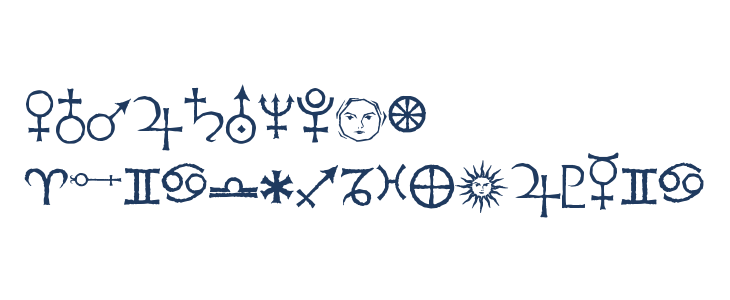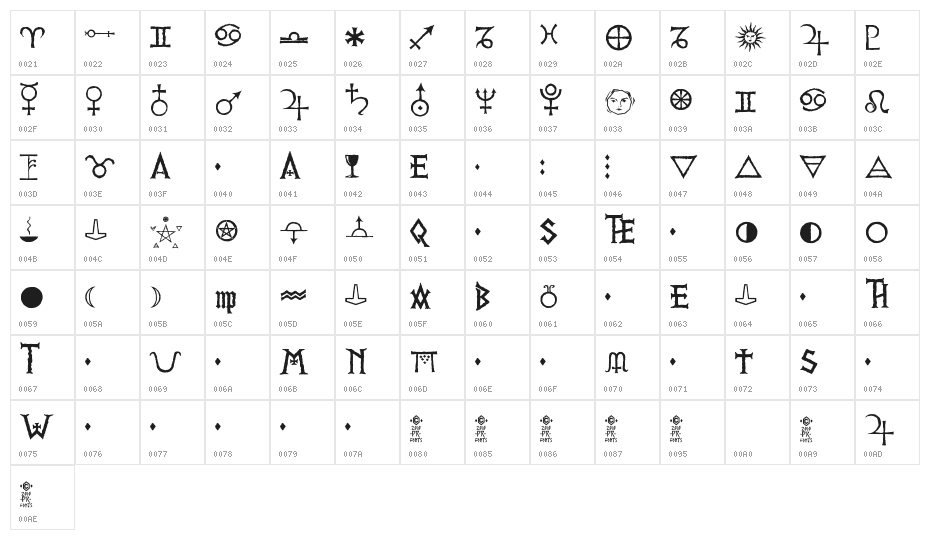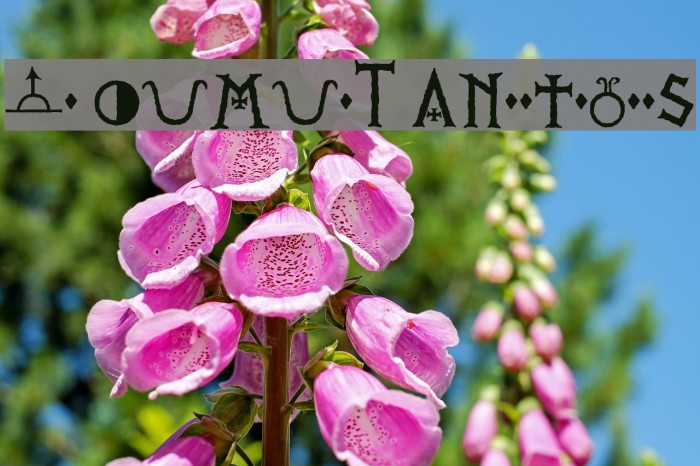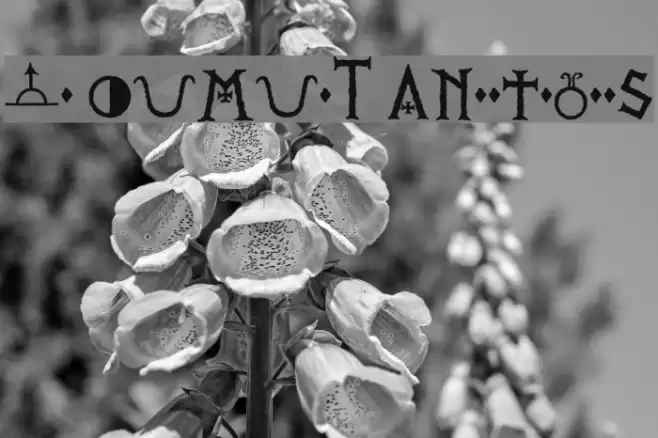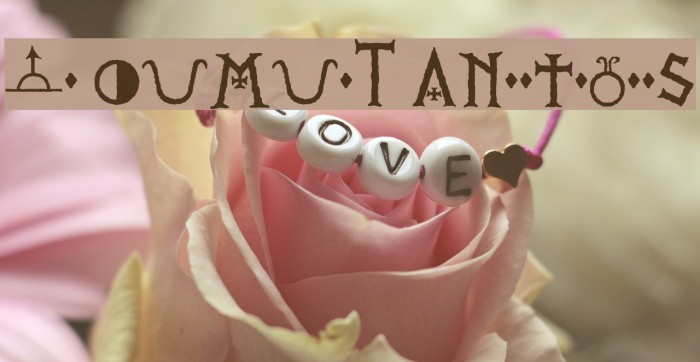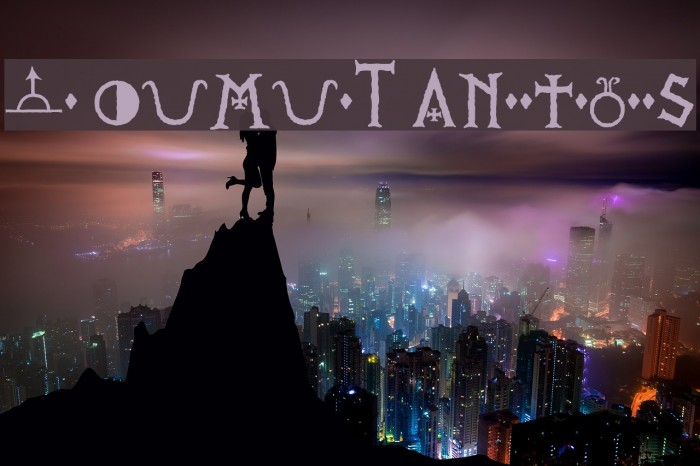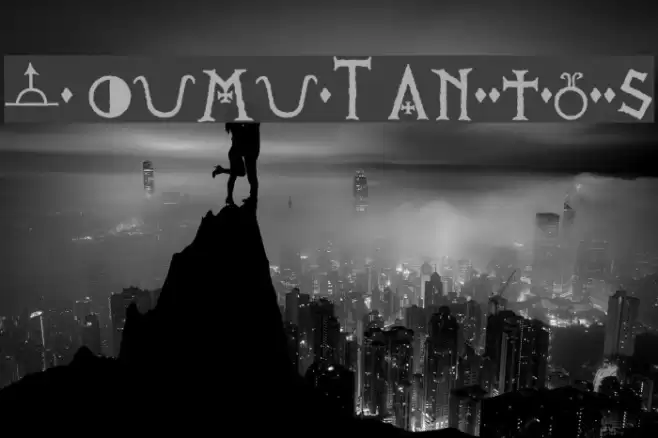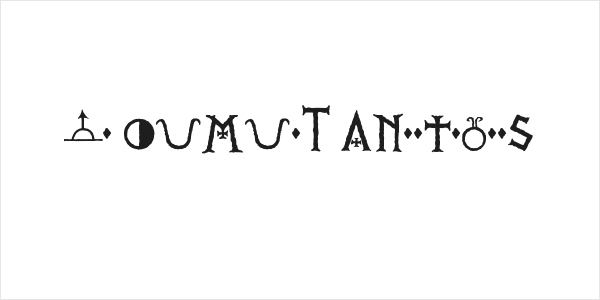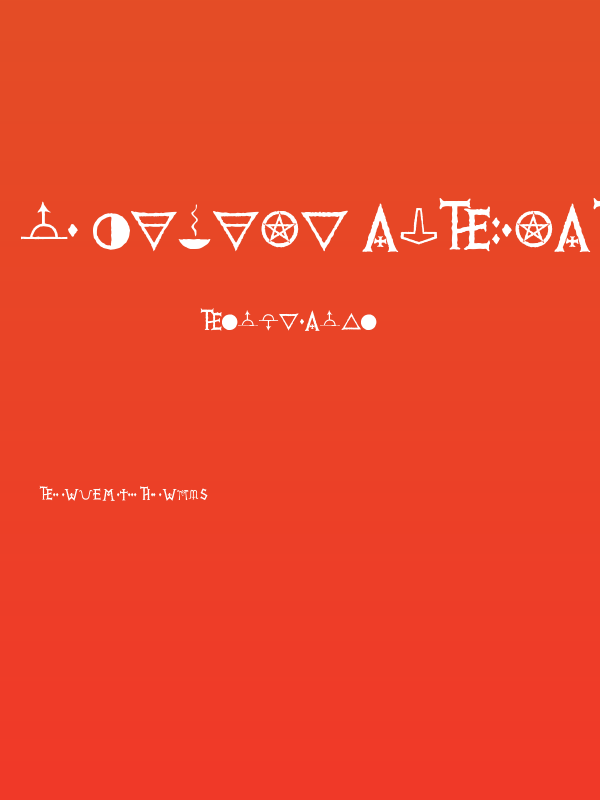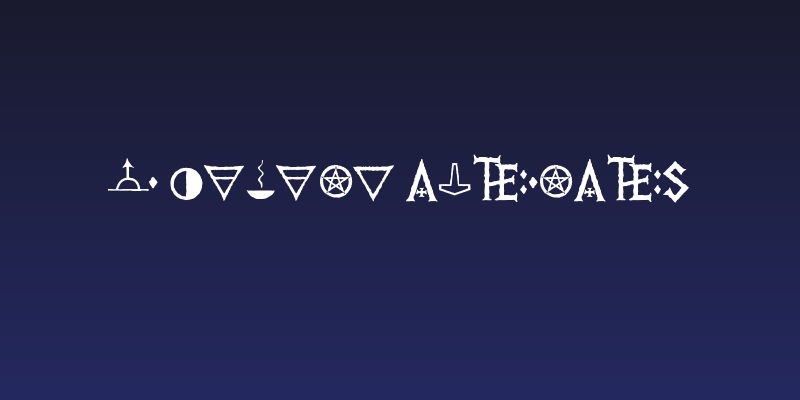
PR Viking Alternates Font
PR Viking Alternates Description
This font features a collection of symbols and characters inspired by Viking and ancient runic designs. Each character is uniquely crafted, incorporating elements such as triangles, circles, and lines that resemble ancient symbols and celestial motifs. The style is bold and decorative, with a hand-drawn appearance that adds a rustic and mystical feel. The characters vary in complexity, with some resembling traditional letters and others taking on more abstract forms. This font is ideal for projects that require a historical or mythical aesthetic, offering a distinctive and artistic touch.
| Use Case | Logos, Posters, Book Covers |
| Proposed Projects | Ideal for fantasy book covers, historical themed posters, game design, and any project needing a mythical or ancient aesthetic. |